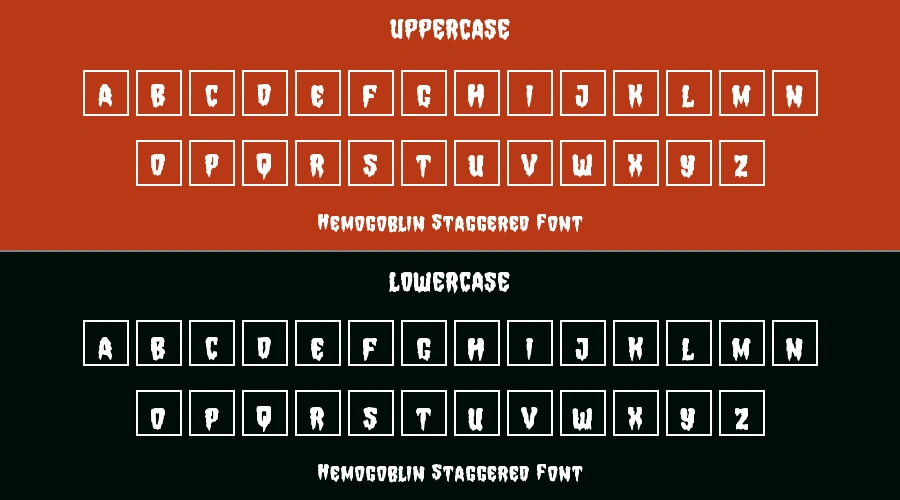
About Hemogoblin Staggered Font
Hemogoblin Staggered Font stands out for its distinctive combination of decorative alternates and visual impact. Ideal for brand launches, it provides the memorability and market appeal that professional projects demand. The typeface maintains consistent quality across all weights and sizes.
Key features include refined width contrast and practical numerator/denominator, enhancing typographic expression. In page numbers applications, Hemogoblin Staggered Font demonstrates exceptional small cap rendering. The stem weight and market positioning contribute to its distinctive character and professional appeal.